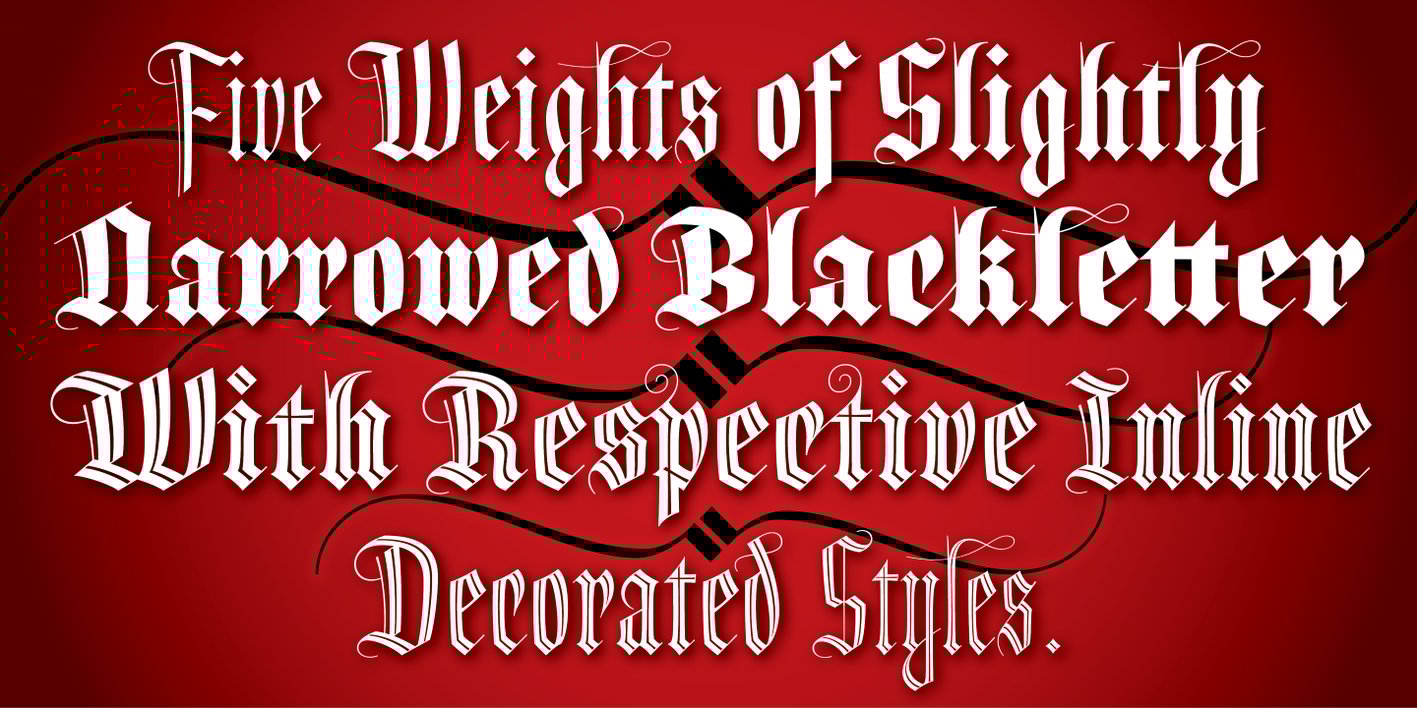
Dractura Font is perfect for vampire-themed entertainment, gothic horror novels, dark fantasy gaming interfaces, Halloween event promotions, supernatural movie titles, gothic architecture publications, medieval castle materials, dark romance book covers, mysterious nightclub branding, and hauntingly dramatic marketing communications.
Dractura Font is exciting because it embodies the ancient power and seductive darkness of legendary vampiric nobility with its dramatically sharp letterforms that seem forged in the shadows of Transylvanian castles and carry the timeless elegance of immortal creatures who have witnessed centuries of human history. Its mysteriously aristocratic character design reflects both the predatory sophistication of vampire lore and the romantic allure that makes dark fantasy eternally captivating, making it perfect for brands seeking to create unforgettable gothic experiences.
Dractura Font family includes light, regular, medium, bold, and black weights, each with corresponding italic versions. The font family also features gothic ornaments, vampiric ligatures, dark symbols, and medieval decorative elements that enhance its supernatural aesthetic and gothic versatility.
This darkly aristocratic typeface represents the perfect fusion of gothic horror and sophisticated elegance. Dractura Font Free Download allows designers to unleash its vampiric potential before making a commercial commitment. The font's ability to convey both ancient power and seductive mystery makes it ideal for entertainment companies, gothic brands, and horror publishers targeting audiences fascinated by dark fantasy and supernatural romance.
Whether you're developing gothic entertainment identities, creating vampire-themed materials, or designing dark fantasy communications, Dractura Font brings an unmistakable sense of vampiric elegance and gothic authority to every project. Its darkly noble character and supernatural heritage create powerful connections that captivate audiences seeking immortal romance and gothic sophistication.
The font's versatility excels in entertainment and gothic environments where dark atmosphere and supernatural appeal are essential. Its vampiric character makes it particularly effective for horror publishers, gothic entertainment venues, dark fantasy games, and supernatural brands seeking to establish mesmerizing relationships with audiences passionate about vampire lore and gothic culture.
For designers working on projects requiring genuine gothic darkness and vampiric appeal, Dractura Font provides an exceptional solution. Its aristocratic presence and comprehensive gothic elements offer the tools needed for creating truly haunting communications, while its immortal elegance ensures your designs capture the seductive power and ancient sophistication that defines the most captivating vampire legends and gothic entertainment experiences.